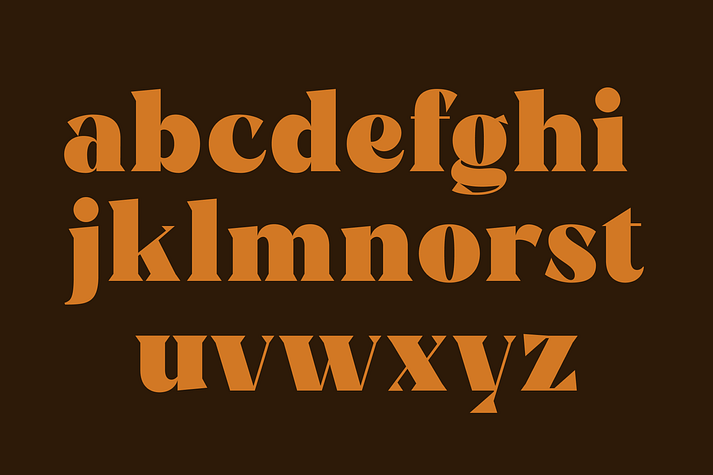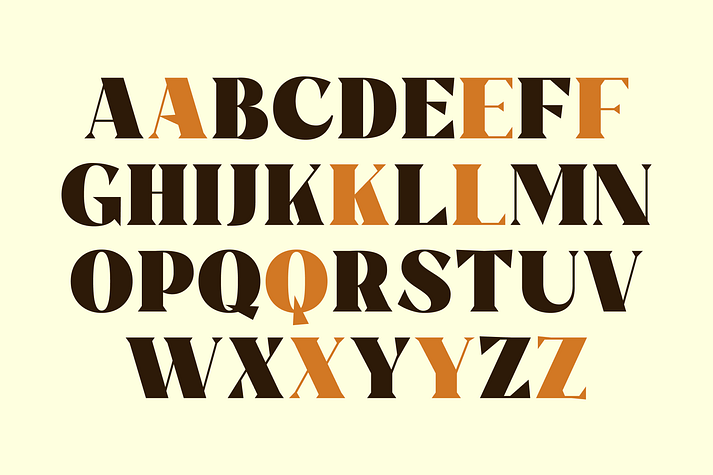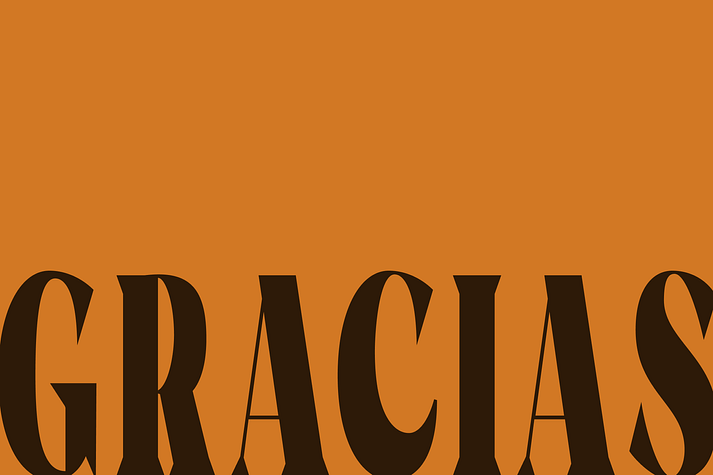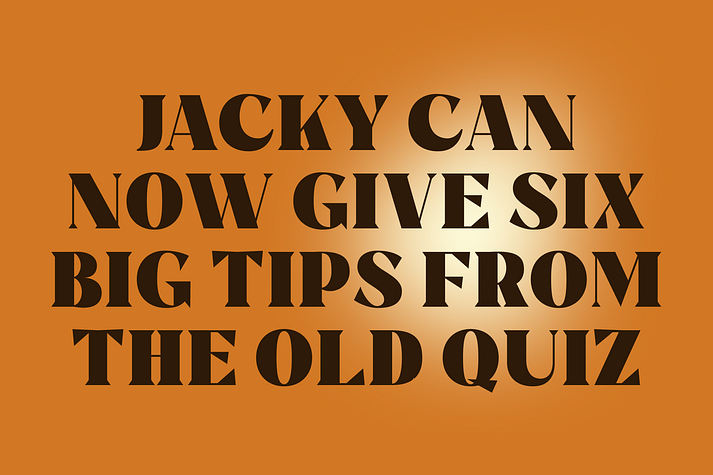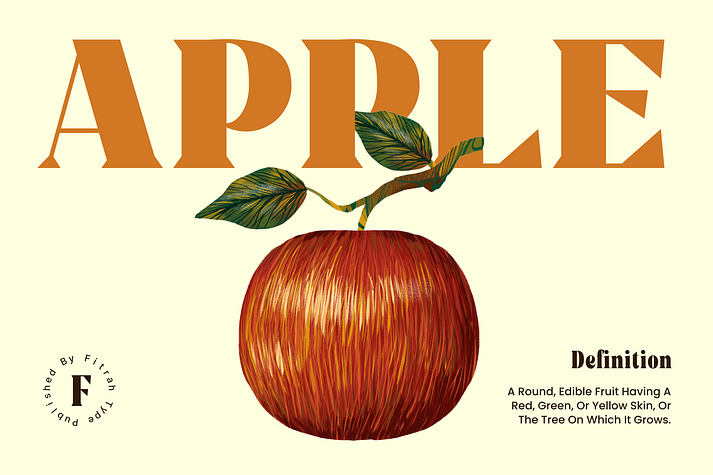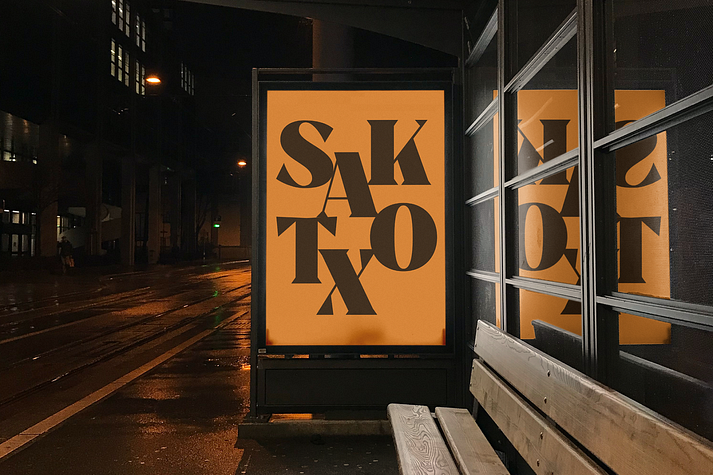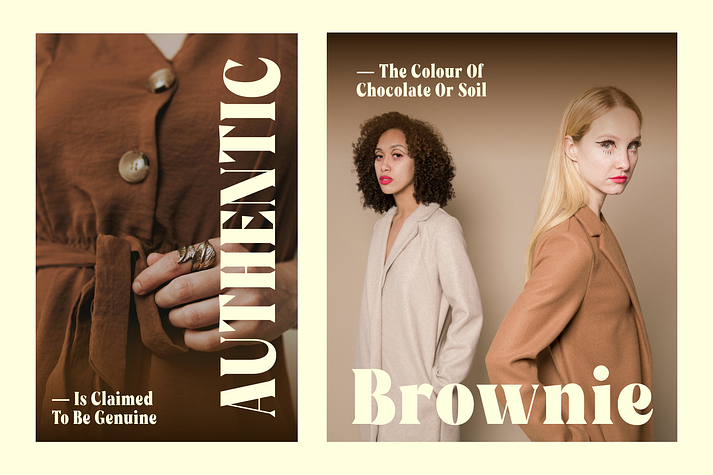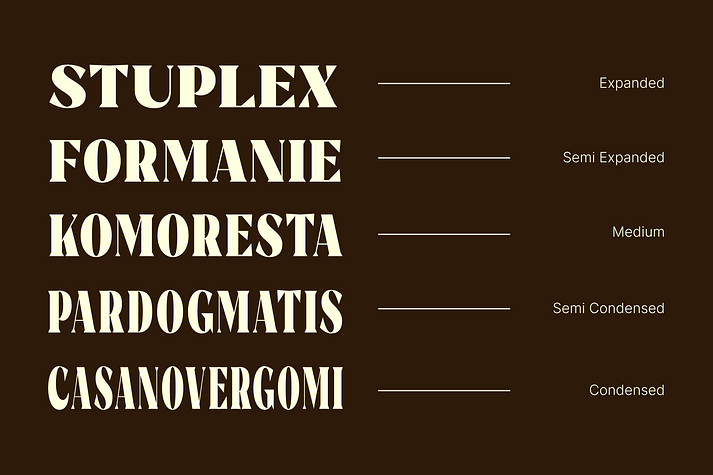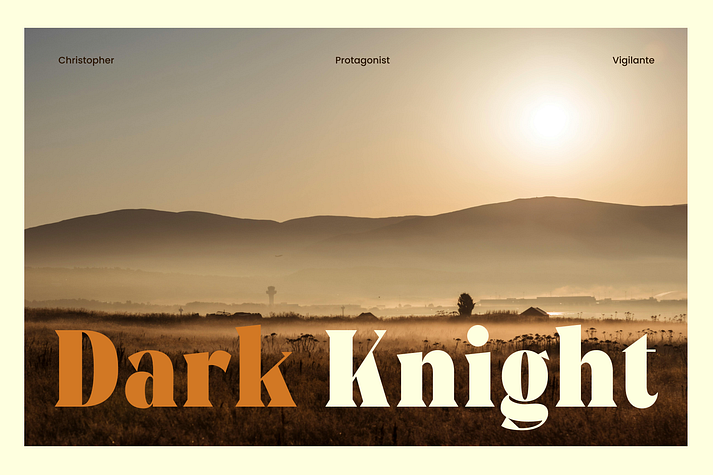
Rigam
Rigam is a display serif, retro and serif font family. This typeface has six styles and was published by Fitrah Type.
Rigam is the newest typeface with a serif style. Character Inspired By Classic and Elegant Typeface. The entire typography has been designed to work on large sizes. This font is good to use on posters, zines, stickers, and t-shirts.